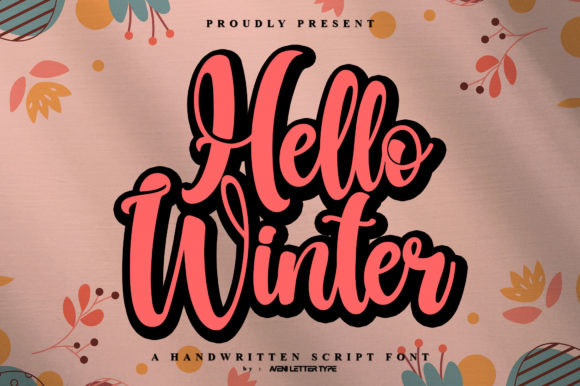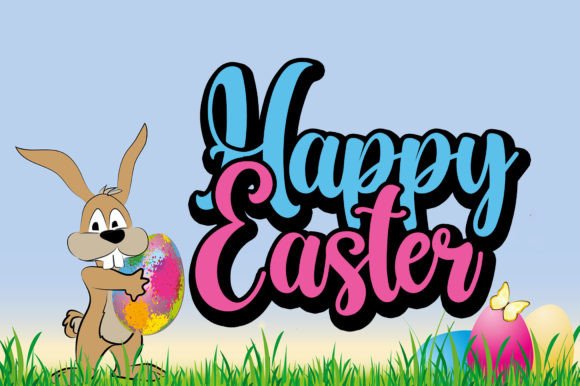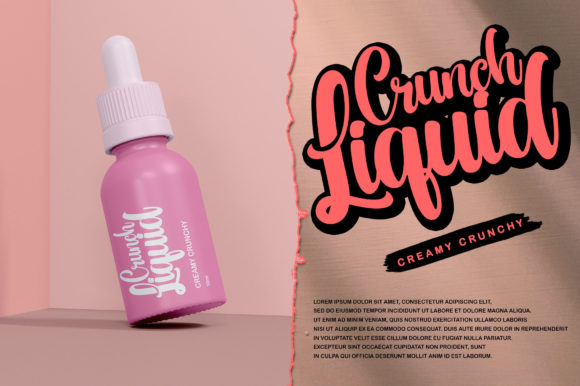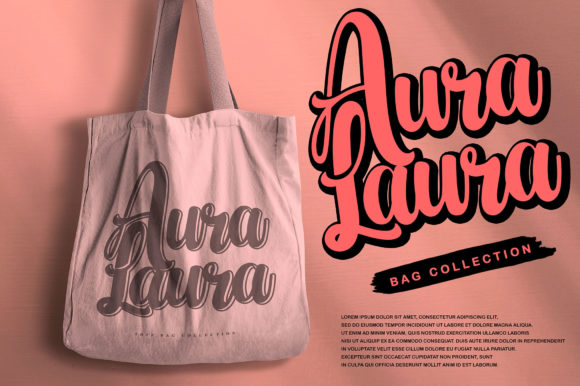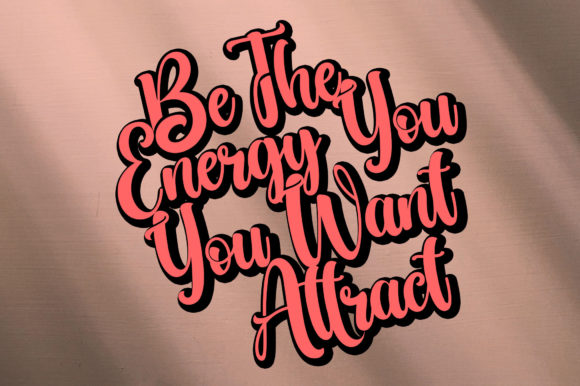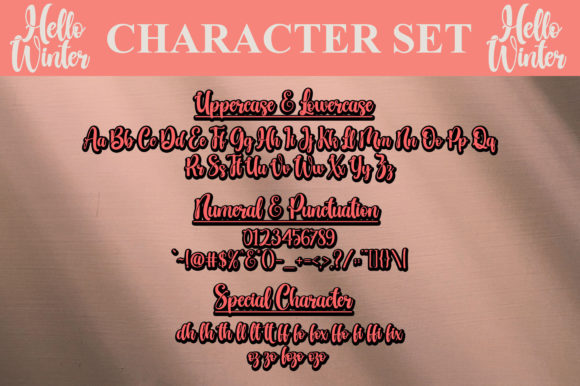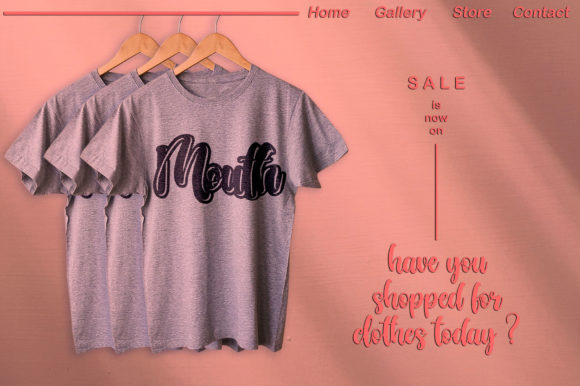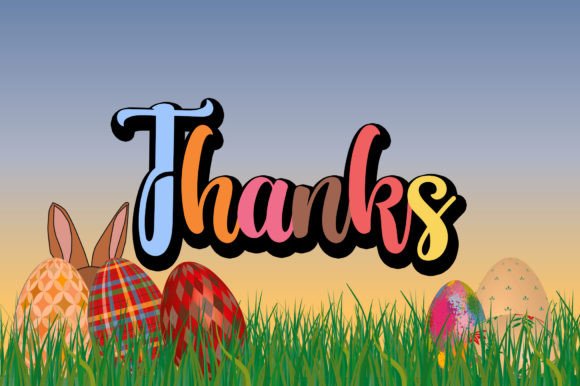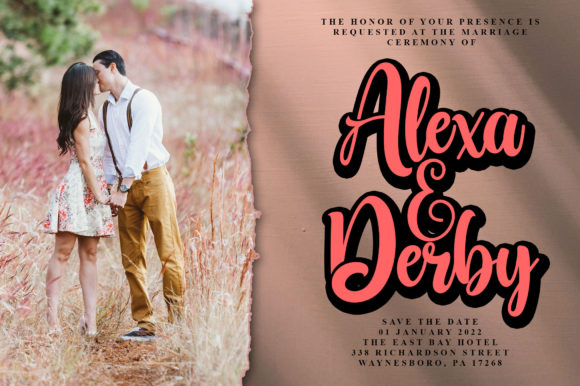
Hello Winter Font
About Hello Winter Font
“Hello Winter” is a handwritten script font that exudes style and uniqueness, enhanced by its meticulous kerning. Crafted with expertise to elevate your creations, this font presents itself as a superb choice for various design concepts. Whether applied to wedding invitations, business cards, t-shirt branding, pouch or bag branding, social media posts, and more, “Hello Winter” has the ability to make your ideas shine.
The allure of “Hello Winter” lies in its ability to add a touch of elegance and individuality to your work. Its handwritten strokes and well-considered kerning contribute to an aesthetic that resonates with visual appeal. This font seamlessly adapts to different contexts, ensuring it enhances the aesthetics of your projects.
From making wedding invitations more charming to branding business cards with a personal touch, “Hello Winter” becomes an essential tool. Its unique design can elevate the visual appeal of your projects, ensuring they leave a lasting impression.
Incorporating “Hello Winter” into your design projects means embracing its stylish and unique attributes. By leveraging its unique charm, you’re enhancing the visual allure of your work and ensuring that your designs resonate effectively with your intended audience. This font becomes a versatile resource for infusing your creations with a touch of sophistication and personalized style, allowing them to shine across various design applications.